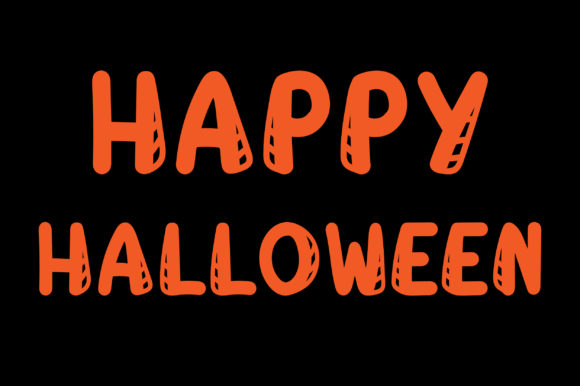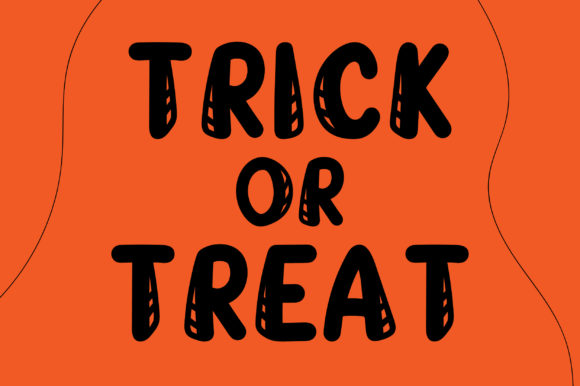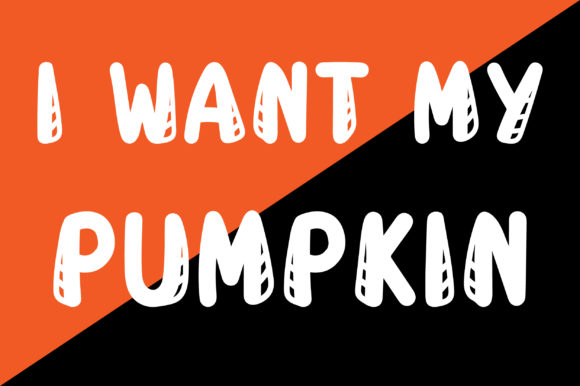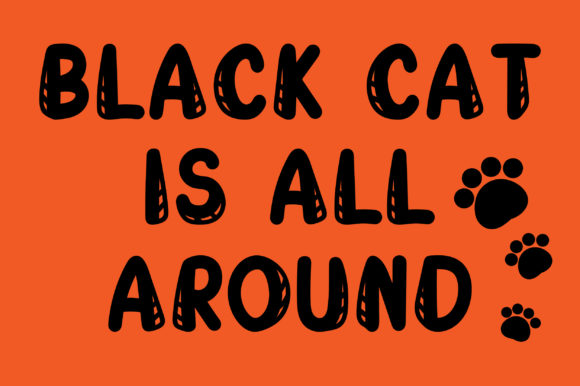
Meet Your New Best Friend: Black Cat Font
Remember the moment when you stumbled upon the perfect font for your next crafting project? The one that brought your ideas to life and made everything feel just right? That’s the magic of finding the perfect font, and today we’re excited to introduce you to the Black Cat Font – a charming and whimsical display font that’s sure to add a touch of personality to your designs.
This delightful font is more than just a pretty face – it’s a versatile tool that can elevate any creative project from ordinary to extraordinary. Whether you’re a seasoned designer or a crafty enthusiast, the Black Cat Font is the perfect companion to help you bring your unique vision to life. With its playful and quirky charm, it’s no wonder why designers are falling in love with this enchanting font.
- Unique Characteristics: The Black Cat font features a distinctive, elegant design with a mix of modern and vintage elements, making it suitable for a wide range of design applications.
Designer Review: Black Cat Font
I recently had the chance to work with the Black Cat font, and I must say it’s a unique and intriguing addition to any design project. ✨ One of the things I appreciate most about this font is its quirky, handwritten feel. It’s perfect for adding a touch of whimsy and personality to your designs.
The Black Cat font also excels at creating a sense of elegance and sophistication, especially when used in titles and headings. ✨ The subtle flourishes and strokes add a level of refinement that’s hard to find in other fonts.
While the Black Cat font is a great choice for many projects, there are some limitations to consider:
- ⚠️ The font may be difficult to read in certain contexts, such as body text or small sizes. This is because the handwritten feel can make the text appear cluttered or hard to decipher.
- ⚠️ The font may not be suitable for corporate or formal branding, as its whimsical nature may not fit with more traditional or conservative brand identities.
Overall, the Black Cat font is a great choice for designers who want to add a touch of personality and whimsy to their projects. While it may have some limitations, its unique feel and elegant strokes make it a valuable addition to any design toolkit.
The Black Cat Font is perfect for:
- Adding a touch of mystery and drama to your designs.
- Creating a spooky or Halloween-themed design.
- Adding a vintage or retro feel to your text.